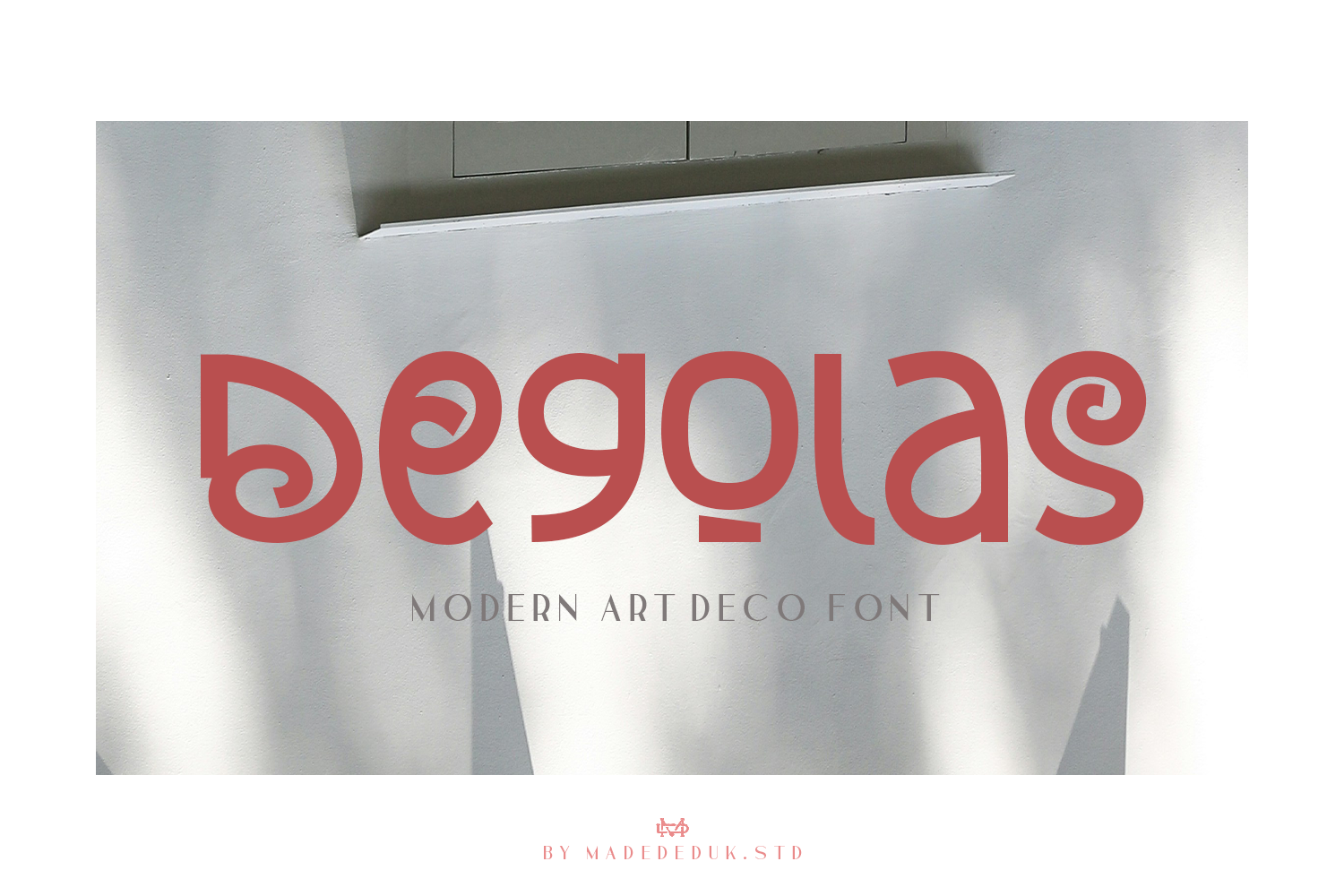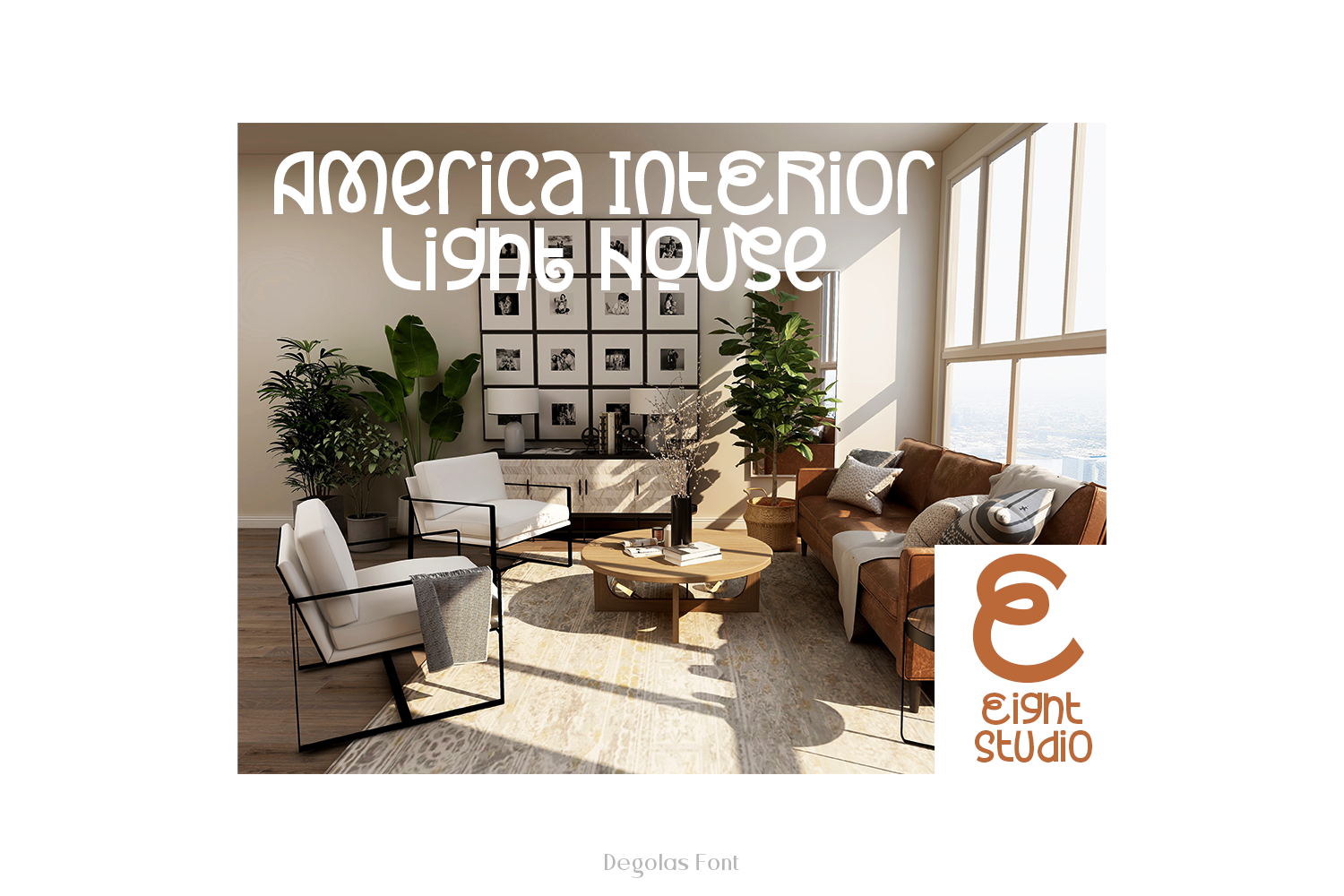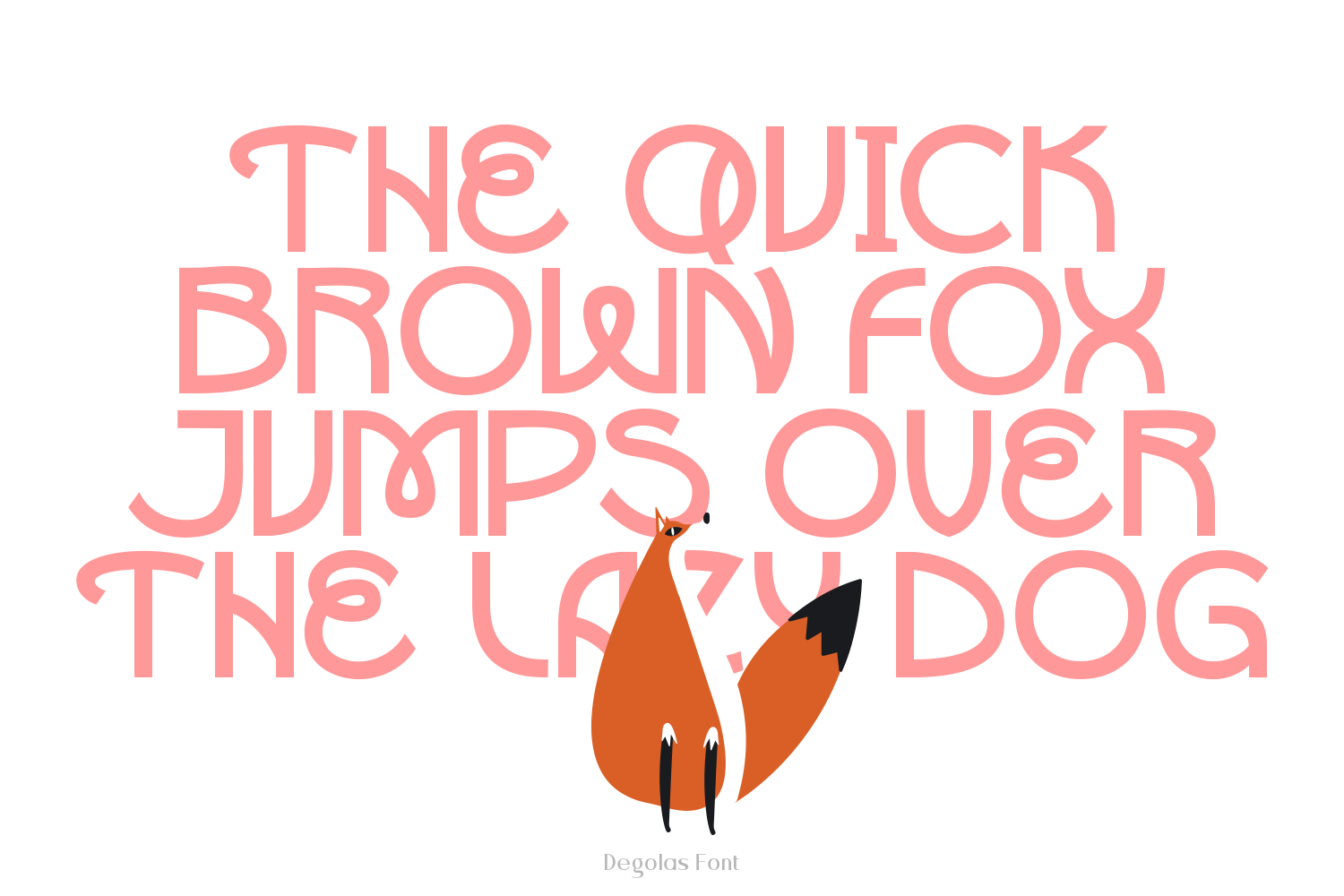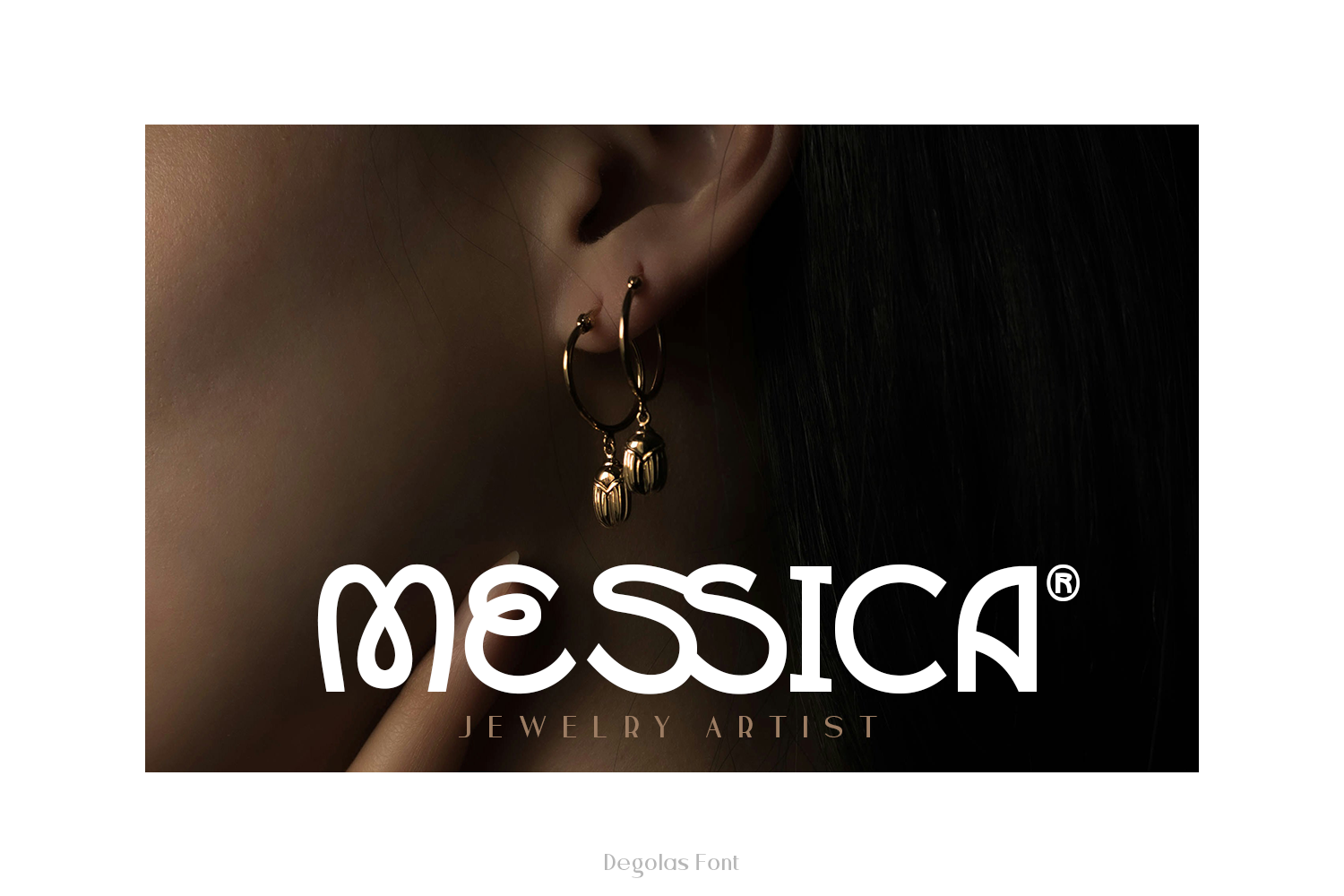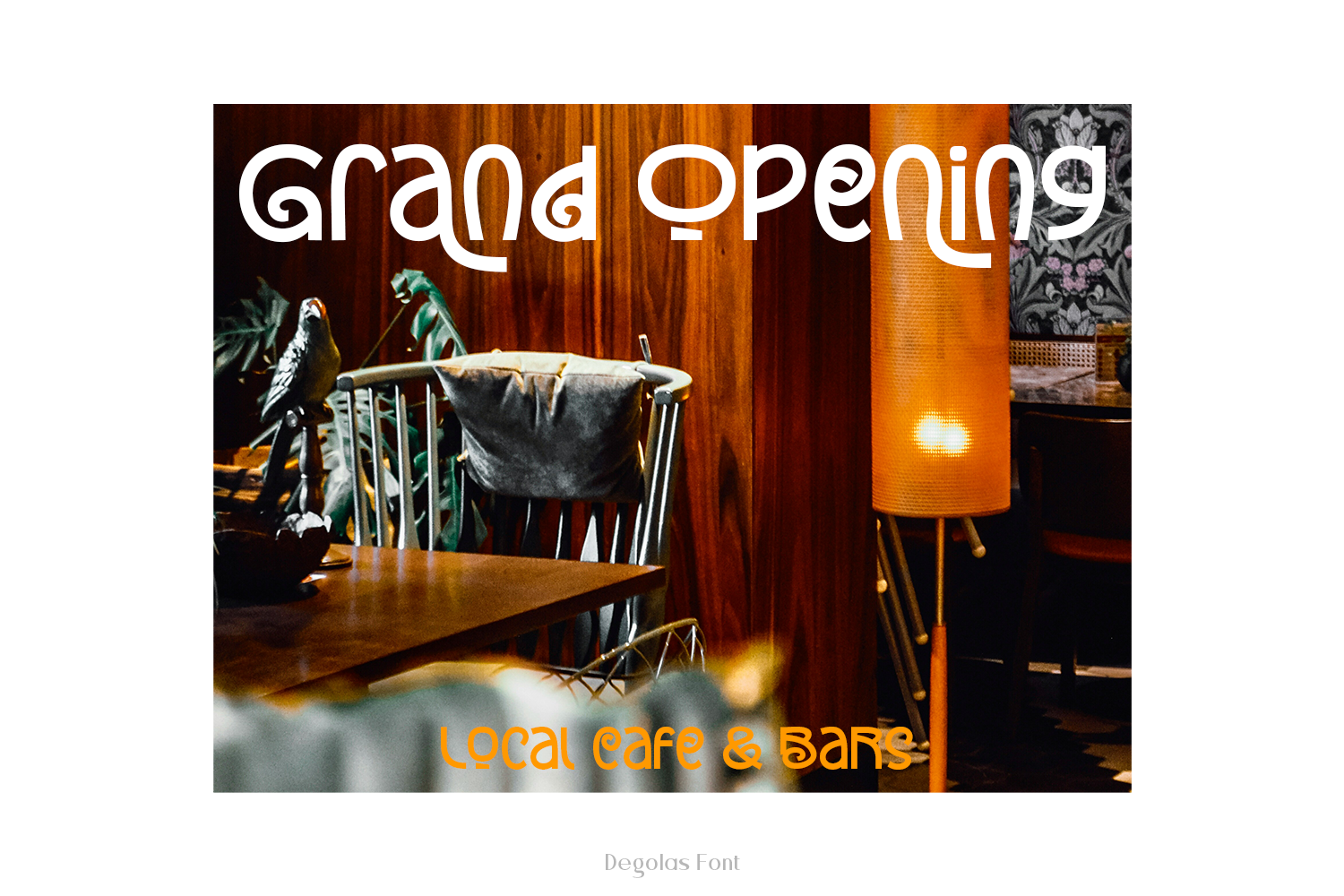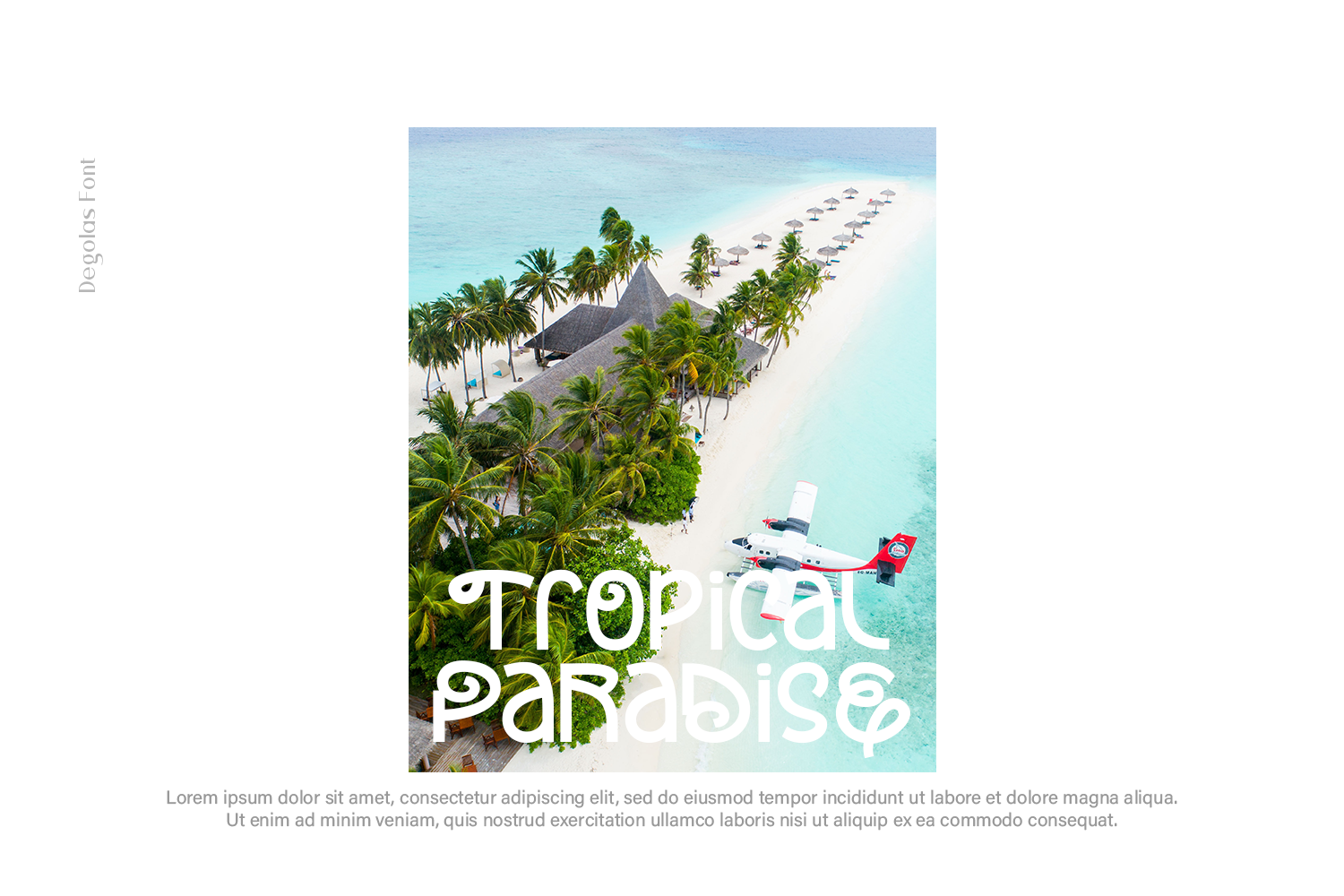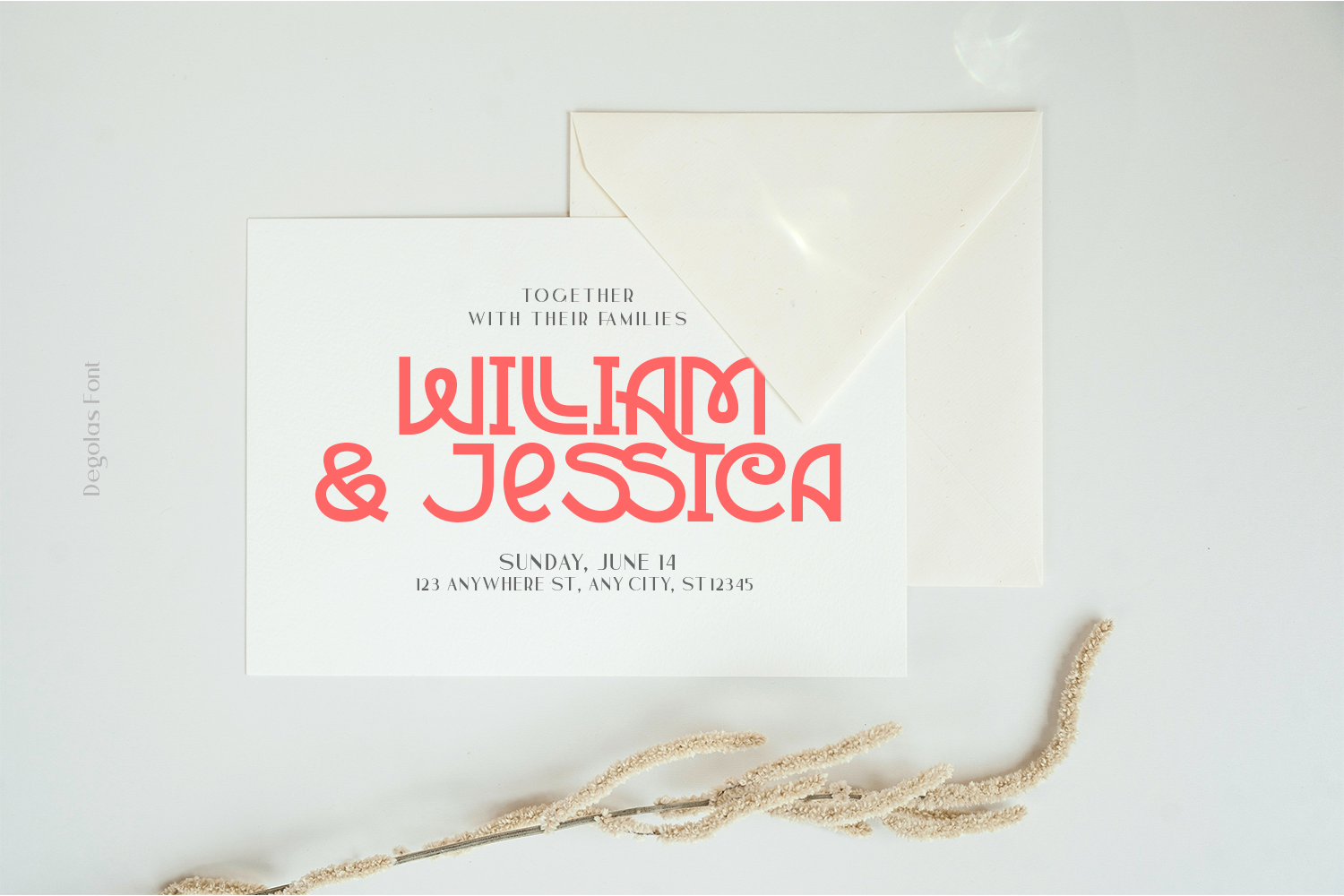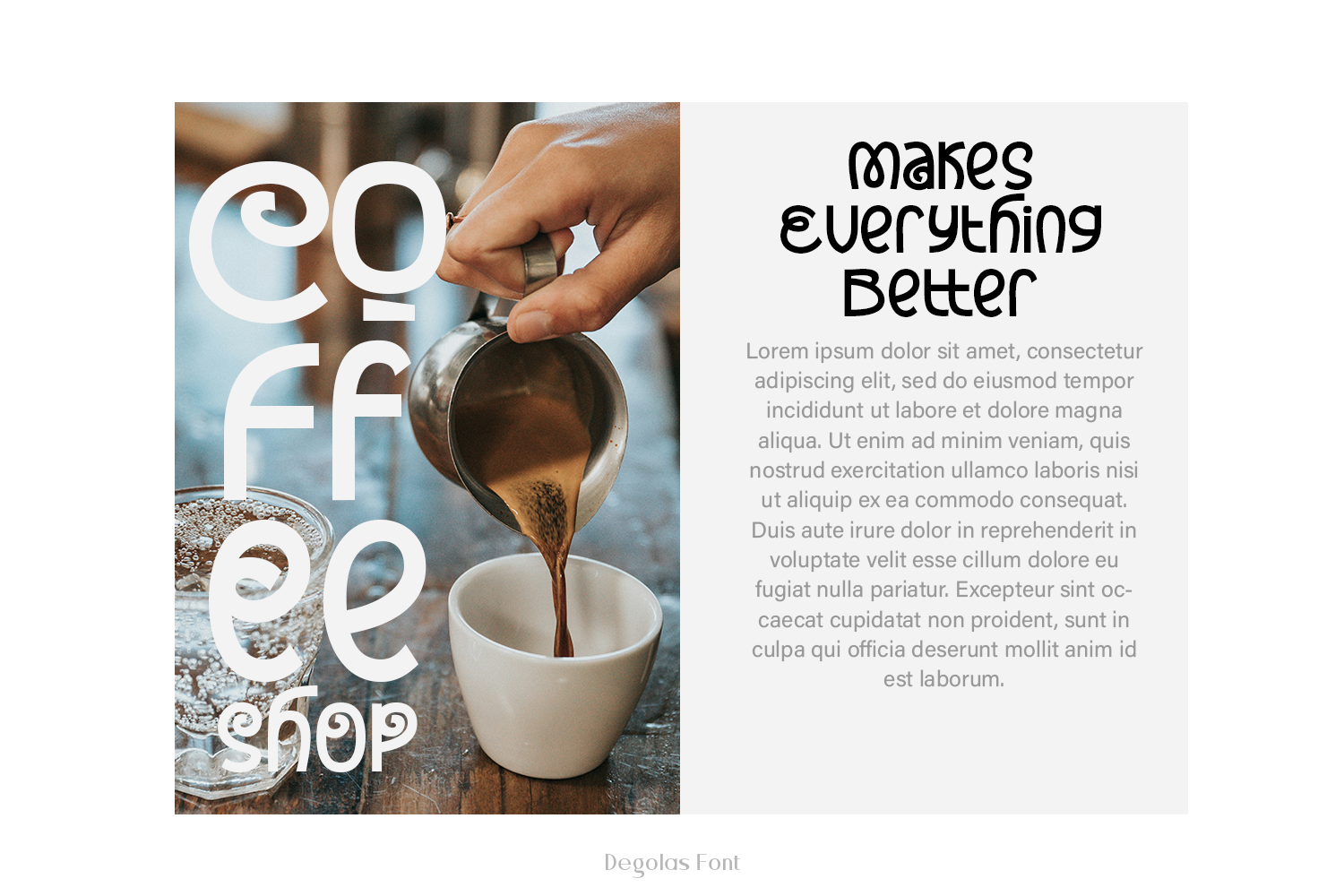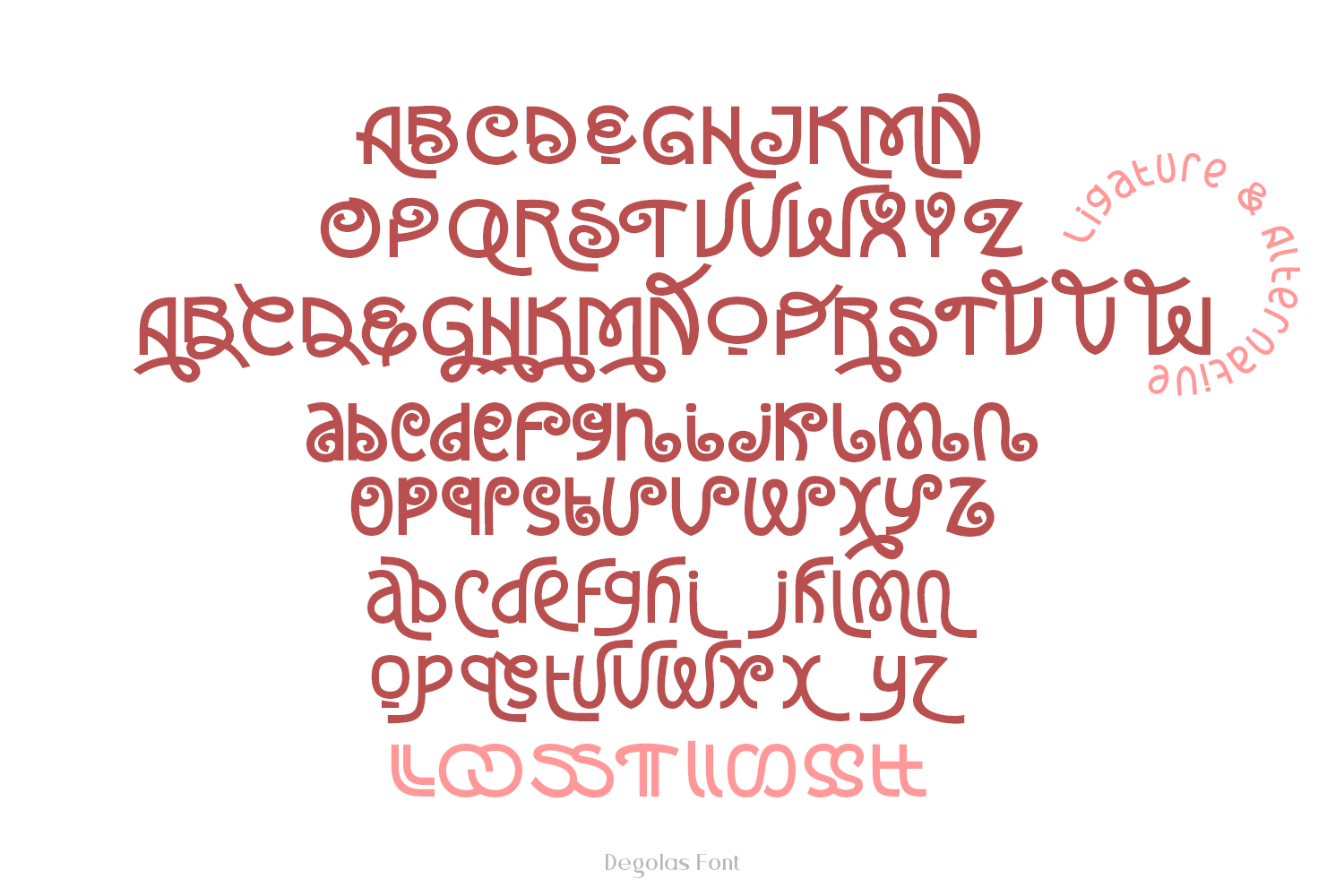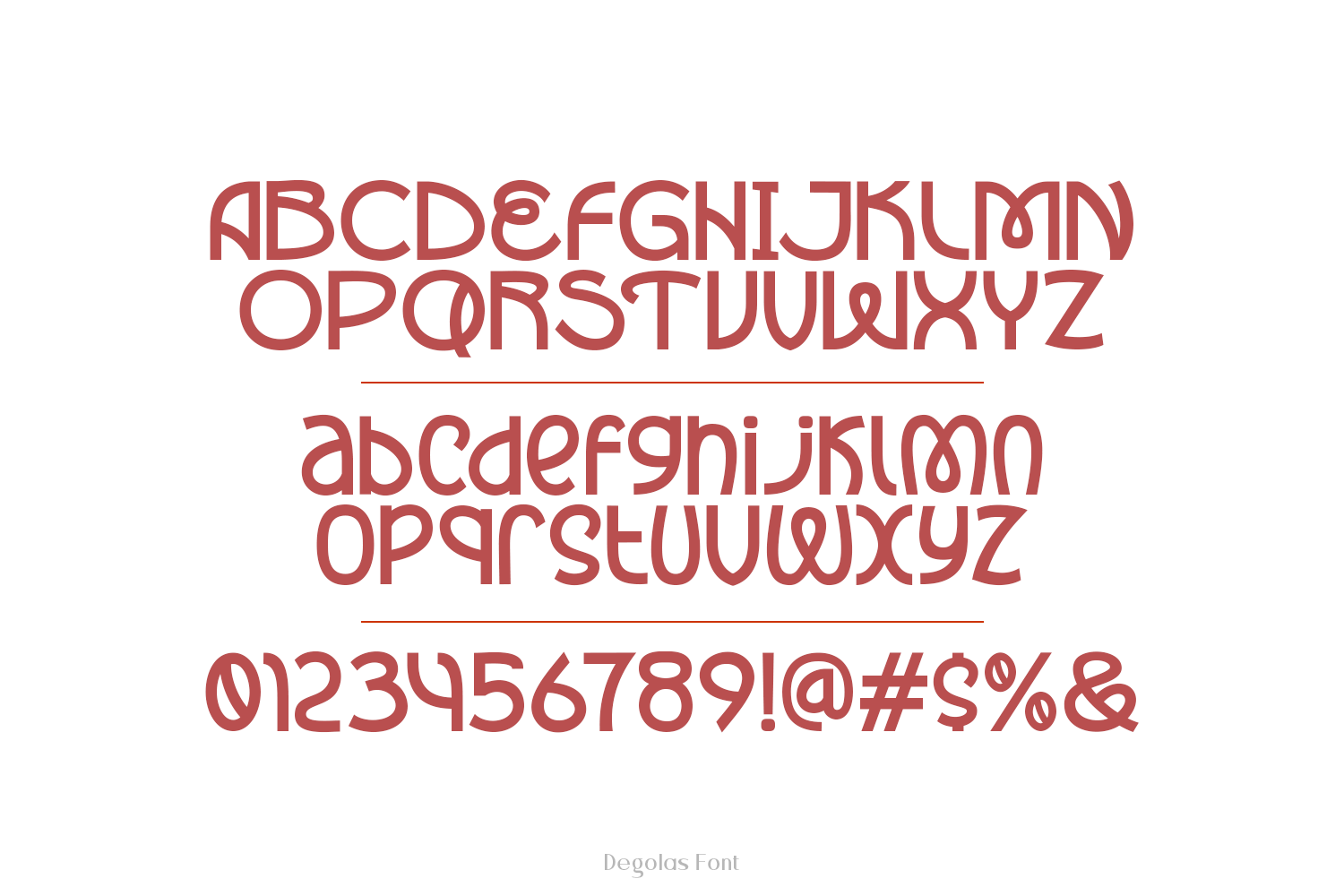
Degolas Font
Inspired by the art deco create a sleek and elegance vintage. It combined modernist simple style, clean shapes that is geometric. use this font for any branding, product packaging, headline, invitation, quotes, t-shirt, label, poster, logo etc.
- Number & Symbol
- International Glyphs
- Alternative
- Ligature